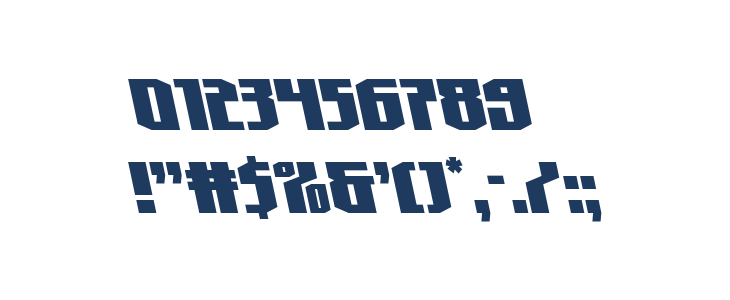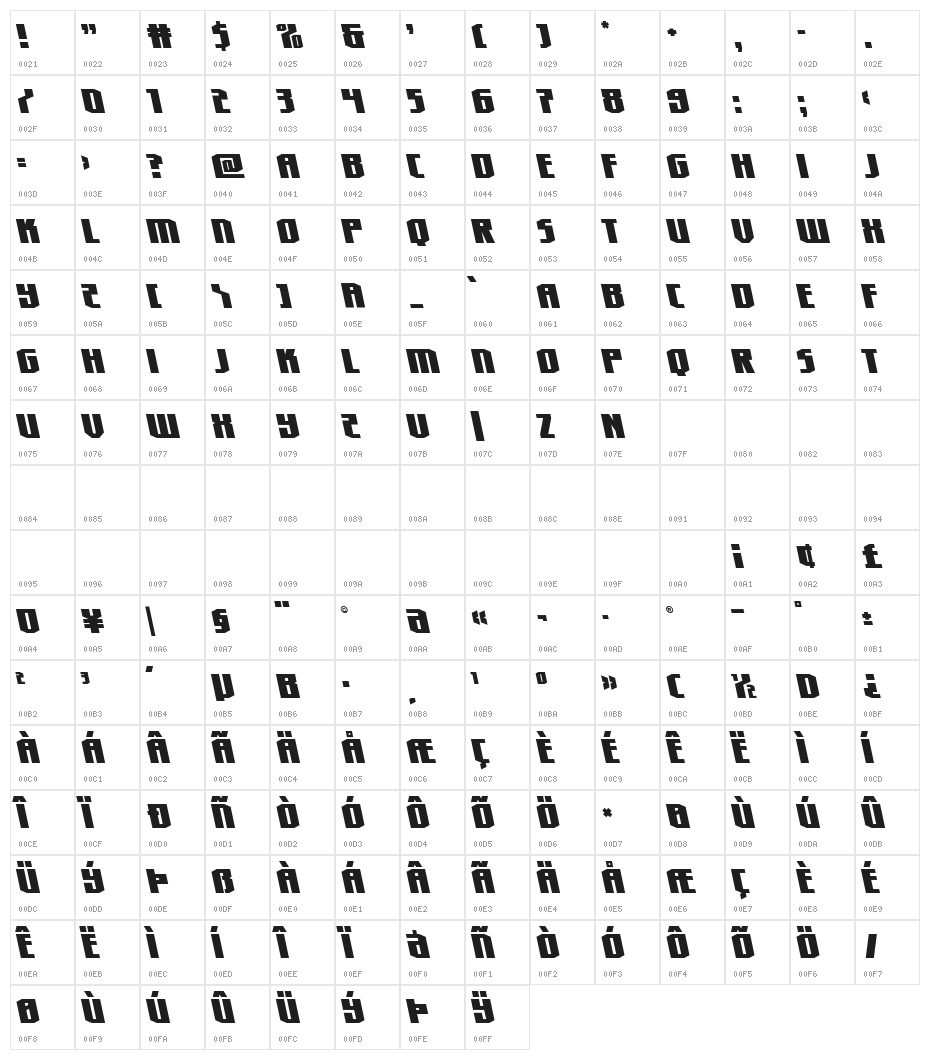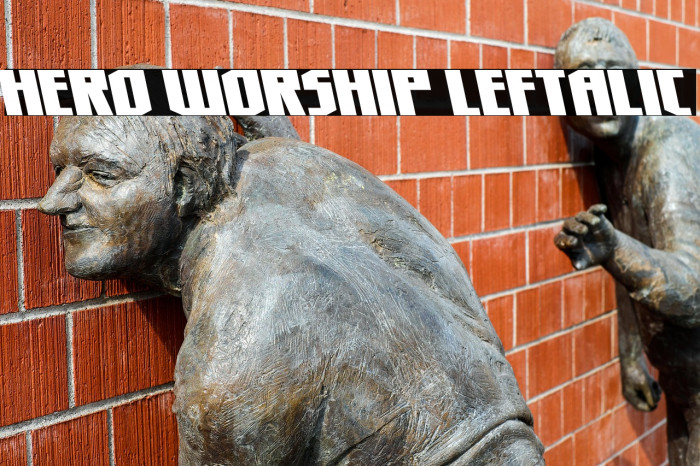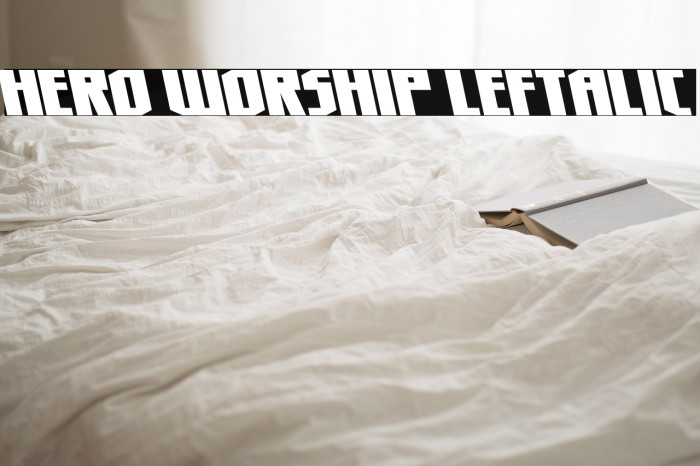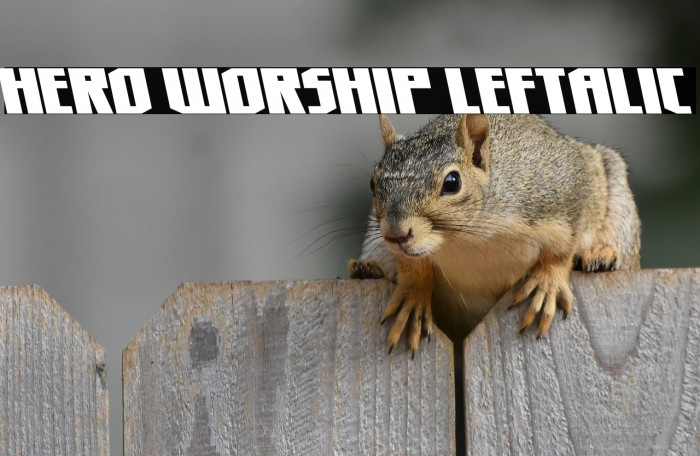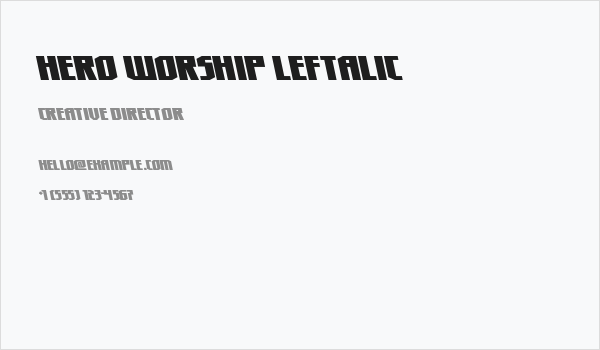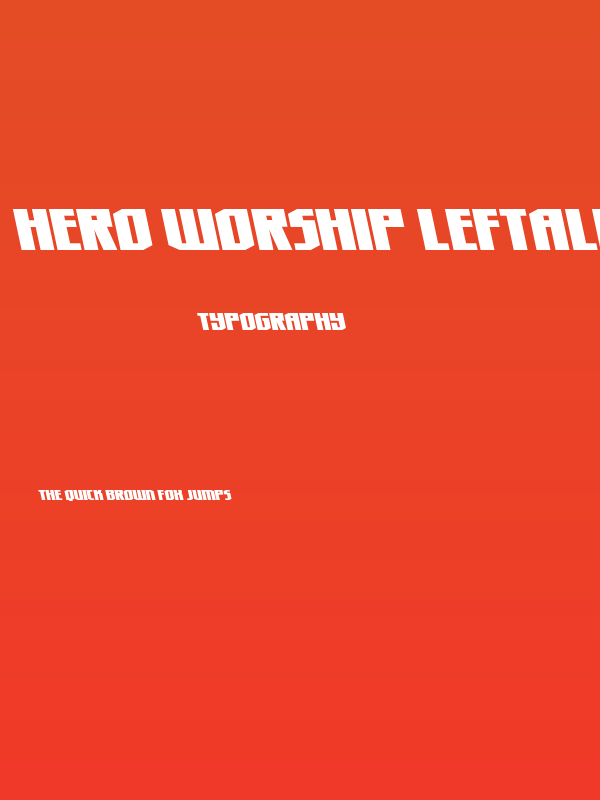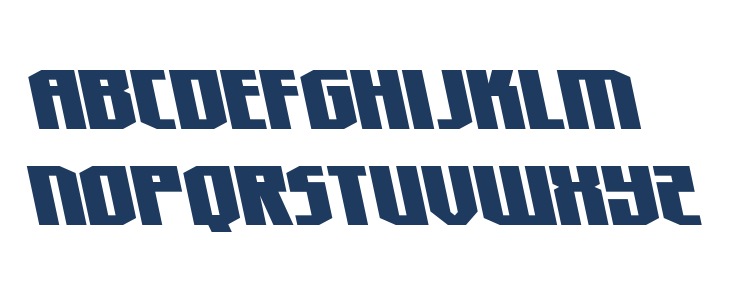
Hero Worship Leftalic Font
Hero Worship Leftalic Description
This font exhibits a bold and angular design, characterized by its thick, blocky letters with sharp edges and a slight leftward slant. The geometric structure gives it a modern and assertive appearance, making it highly suitable for impactful headlines and attention-grabbing designs. The uppercase and lowercase letters maintain a consistent style, with the numbers and special characters following the same bold and angular theme. The font's strong presence is enhanced by its uniform stroke thickness, contributing to a cohesive and powerful visual impact.
| Proposed Projects | Perfect for posters, logos, branding, and any project requiring a strong, modern aesthetic. |